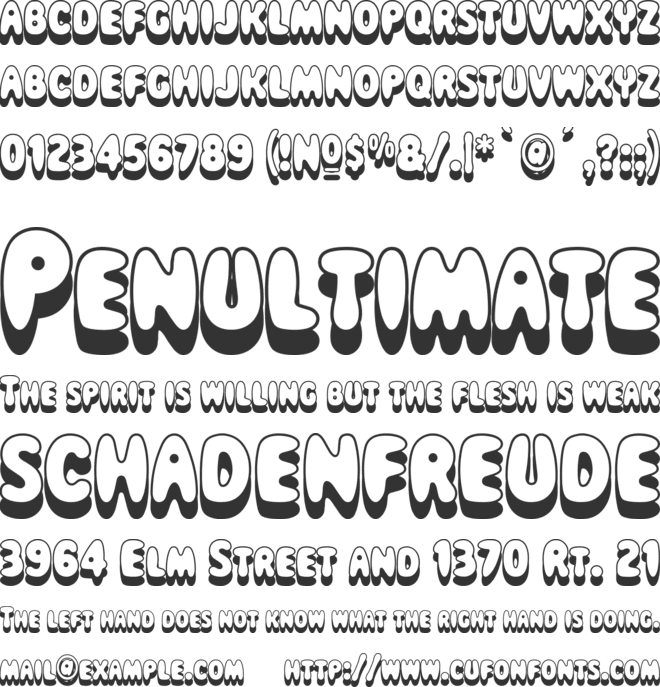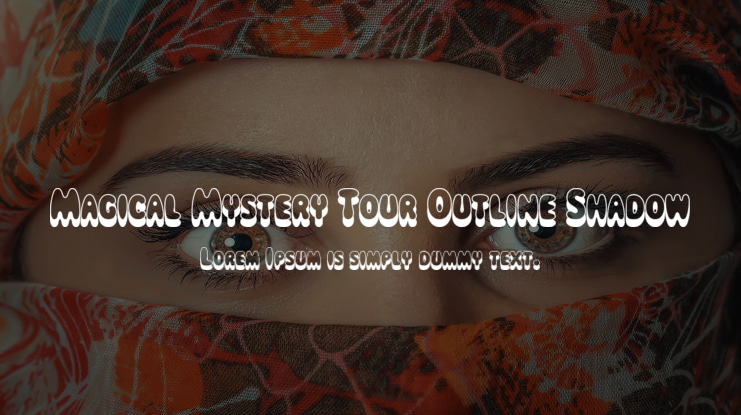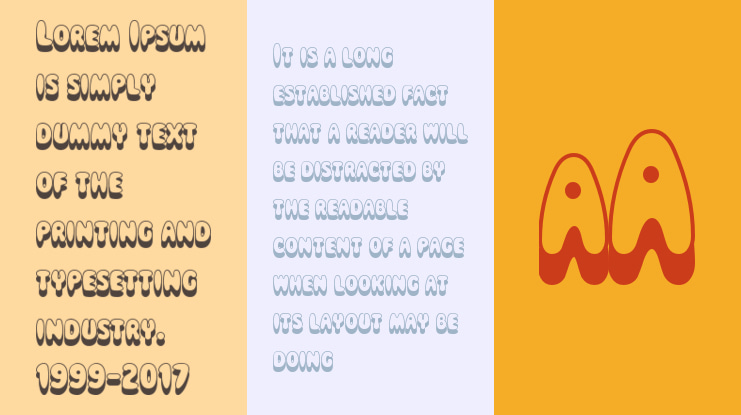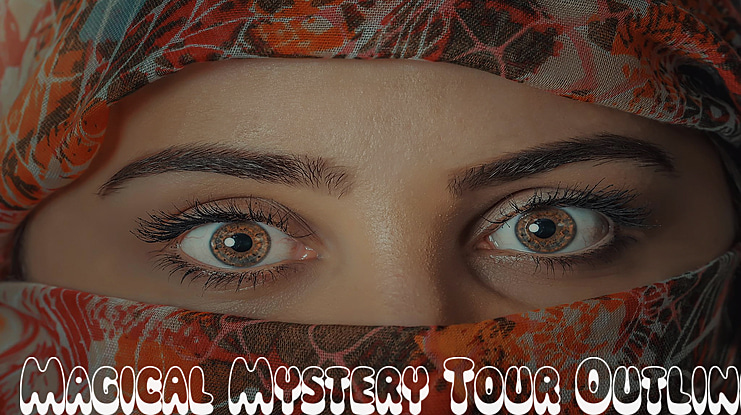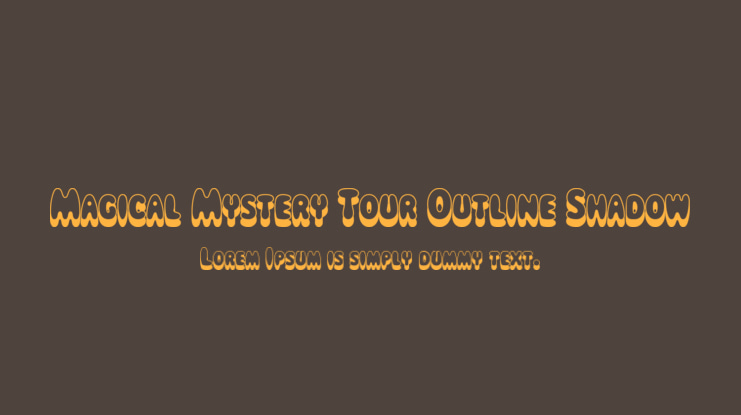
Magical Mystery Tour Outline Shadow Font Family
Magical Mystery Tour, and the Outline Shadow version which is also included, are fonts based on the lettering used for the record sleeve of the 1967 Beatles double EP, Magical Mystery Tour. I was looking at the Beatlelinks website and someone was searching for this font. I couldnât find it either.
Magical Mystery Tour by Keith Bates is a free font based on the lettering used for the Magical Mystery Tour record sleeve. K-Type Freebie 2005, www.k-type.com,